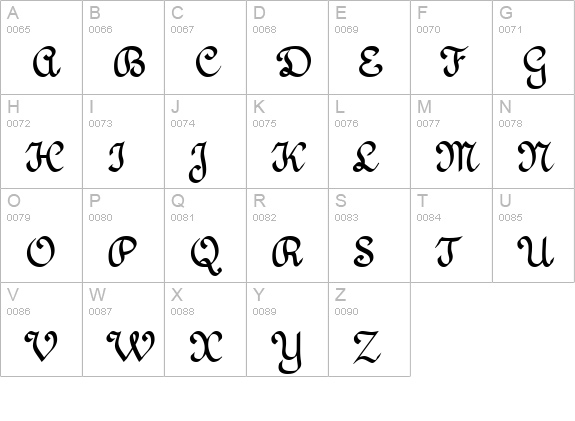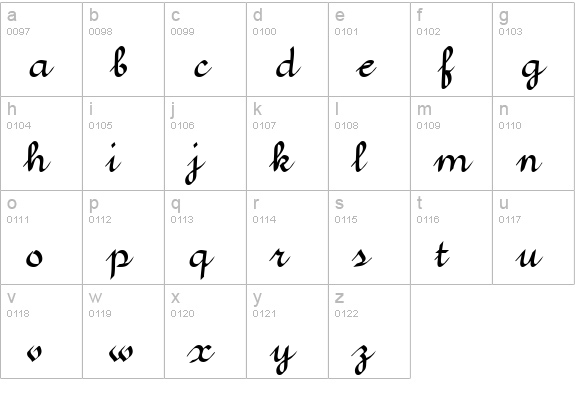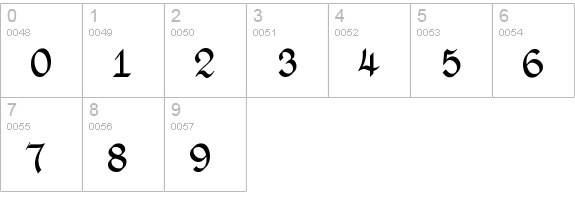
VunderScript Bold Font Details
VunderScript Bold is a strong, high-contrast variant in the VunderScript typeface family \xE2\x80\x94 well suited to headlines, attention-grabbing titles, and strong calls-to-action.
Introducing VunderScript Bold, a visually captivating font that effortlessly combines sophistication with a touch of playfulness. With its bold and daring strokes, this font exudes confidence and commands attention in any design project. VunderScript Bold is the perfect choice for those looking to make a bold statement. Whether it's for a logo, a headline, or a poster, this font will leave a lasting impression on your audience. Its unique and intricate letterforms add a sense of dynamic movement, making it ideal for projects that require a touch of excitement. What sets VunderScript Bold apart is not just its stunning aesthetics, but also its versatility. This font seamlessly adapts to various design styles, whether it's modern and edgy or classic and elegant. Its versatility allows you to explore endless possibilities and bring your creative vision to life. And the best part? VunderScript Bold is available for free! You can easily download it from FontsMarket.com, a trusted source for high-quality fonts. By offering this font for free, the creators of VunderScript Bold have made it accessible to designers of all levels, ensuring that everyone can enjoy its beauty and unleash their creativity. So, if you're looking to make a statement and captivate your audience, look no further than VunderScript Bold. With its boldness, versatility, and the added bonus of being free to download, this font is a must-have addition to your design arsenal. Get ready to make a lasting impression with VunderScript Bold!